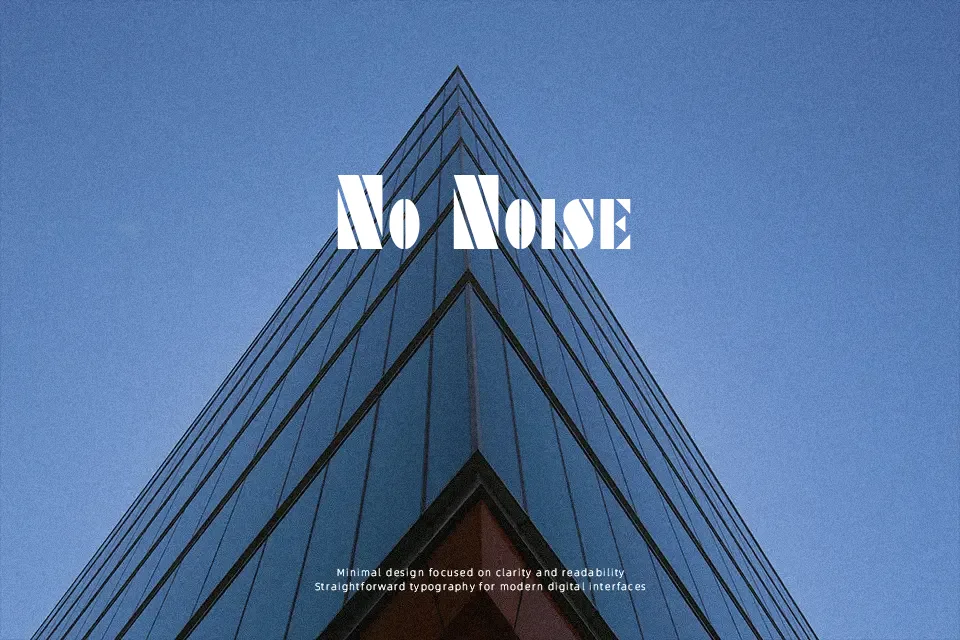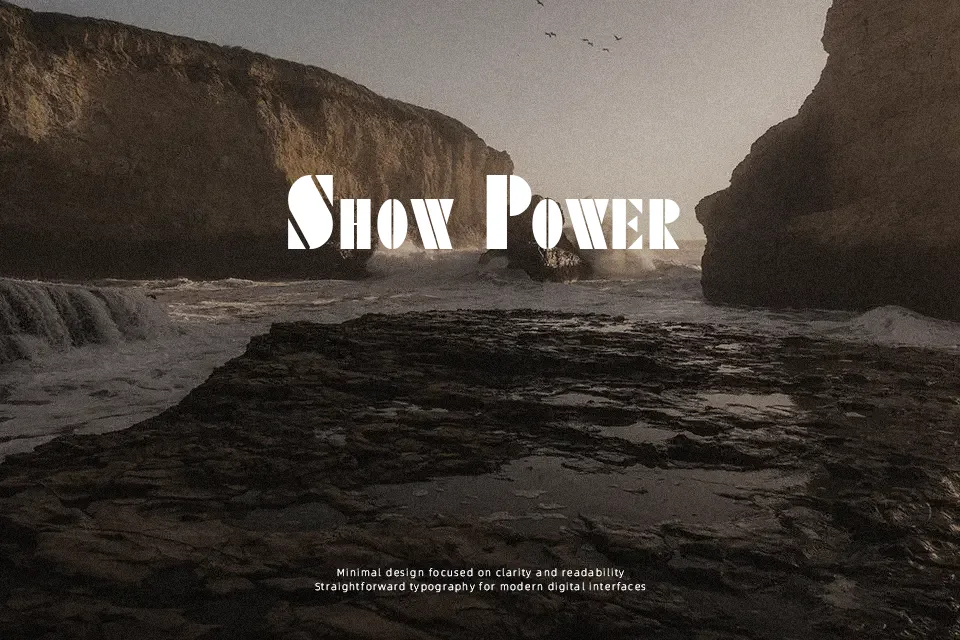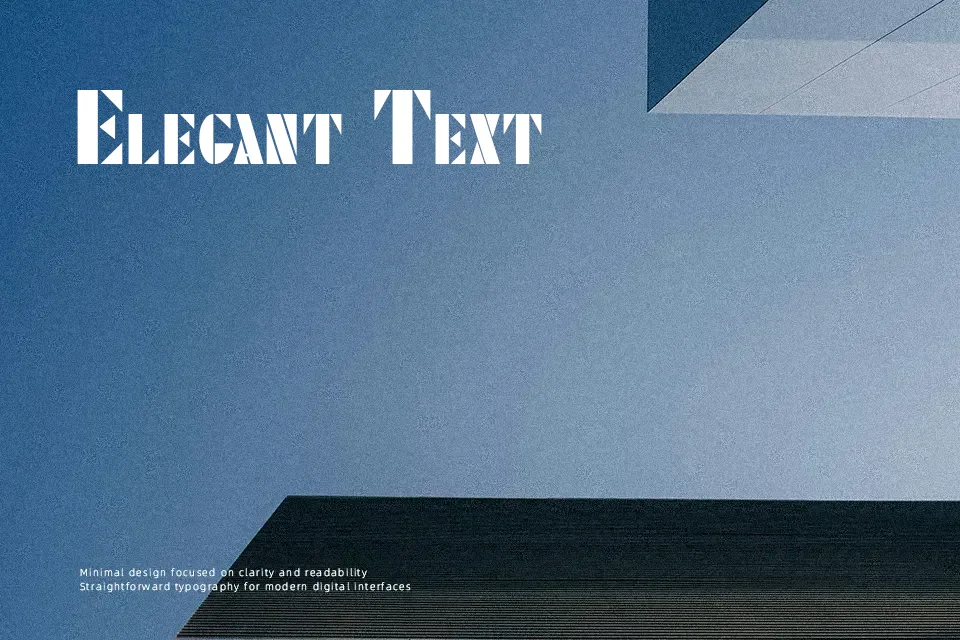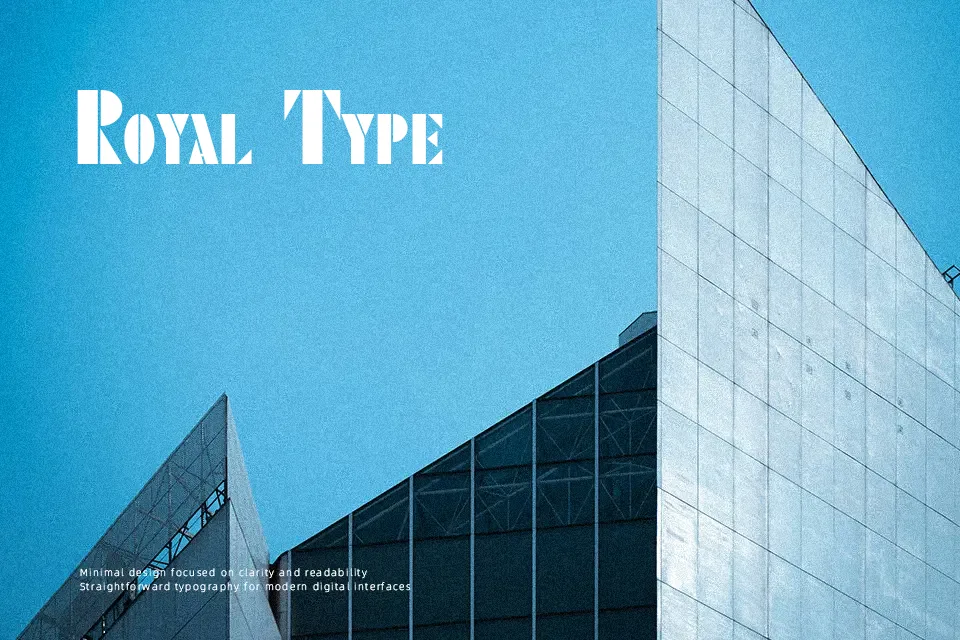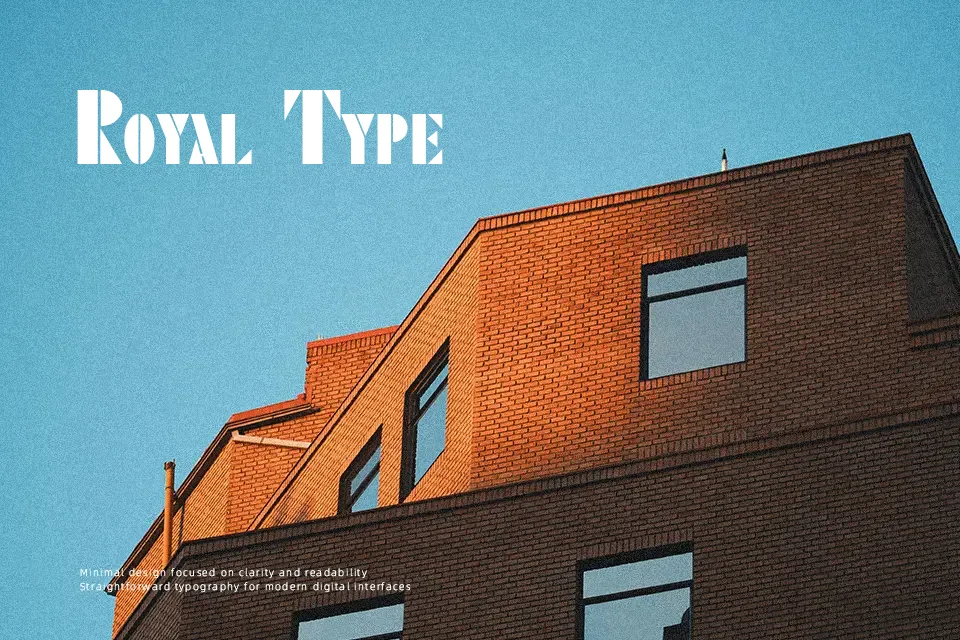
Stencilitis Font
Stencilitis Font presents a sturdy structural framework defined by thick, uniform strokes and prominent stencil interruptions across each glyph. The characters exhibit solid proportions with tight horizontal spacing, giving words a compact and commanding presence. In terms of clarity, the letterforms remain distinct in large headline compositions, packaging banners, and tactical branding elements. The bold breaks create strong graphic definition that holds up well in physical print production. However, the heavy weight and fragmented letter construction become difficult to parse at small sizes, making the typeface unsuited for body copy or continuous reading paragraphs.
Best For: military themed posters, industrial packaging, streetwear graphics, tactical game titles
Not Ideal For: continuous body text, dense editorial layouts, small mobile interface labels, formal corporate documents
Perfect for branding, gaming, and headline, with a bold and display style.